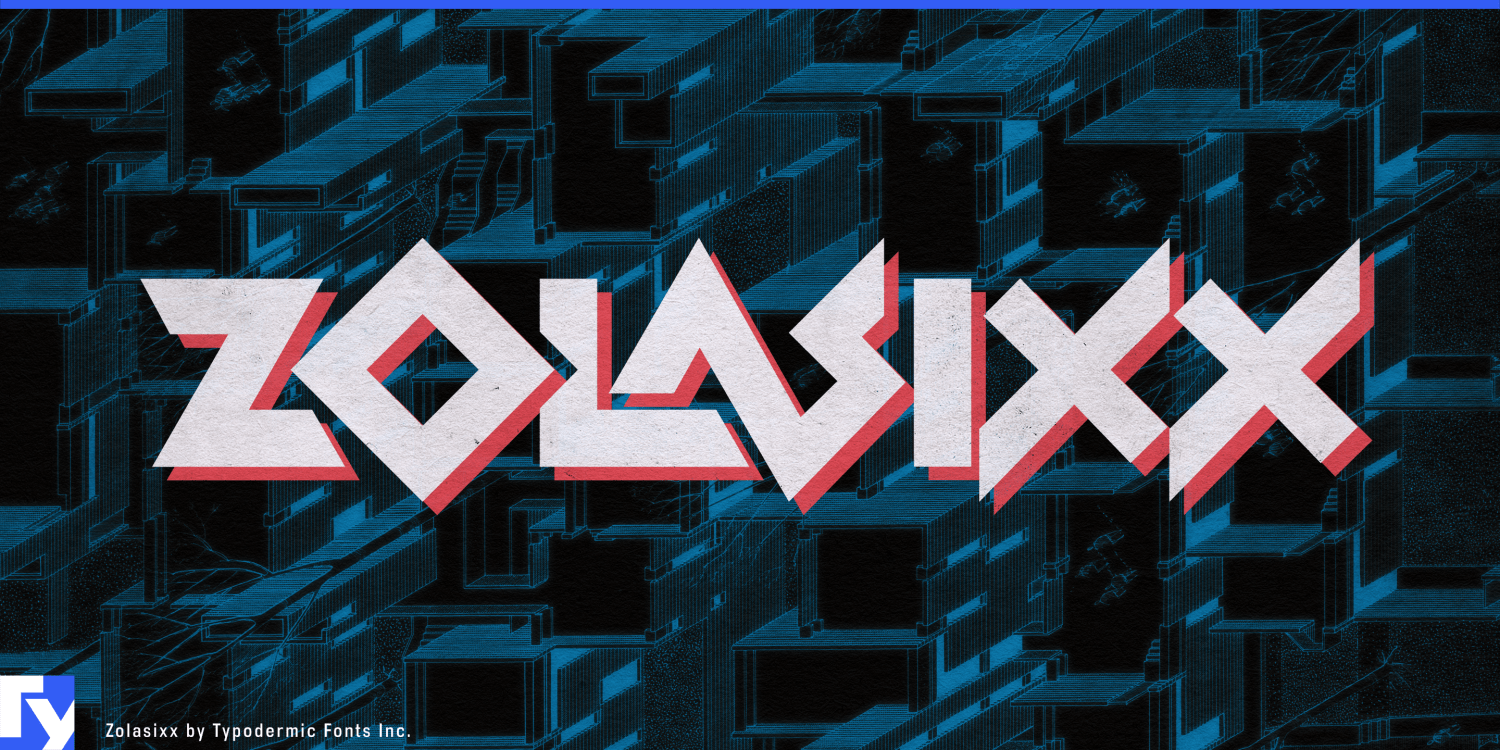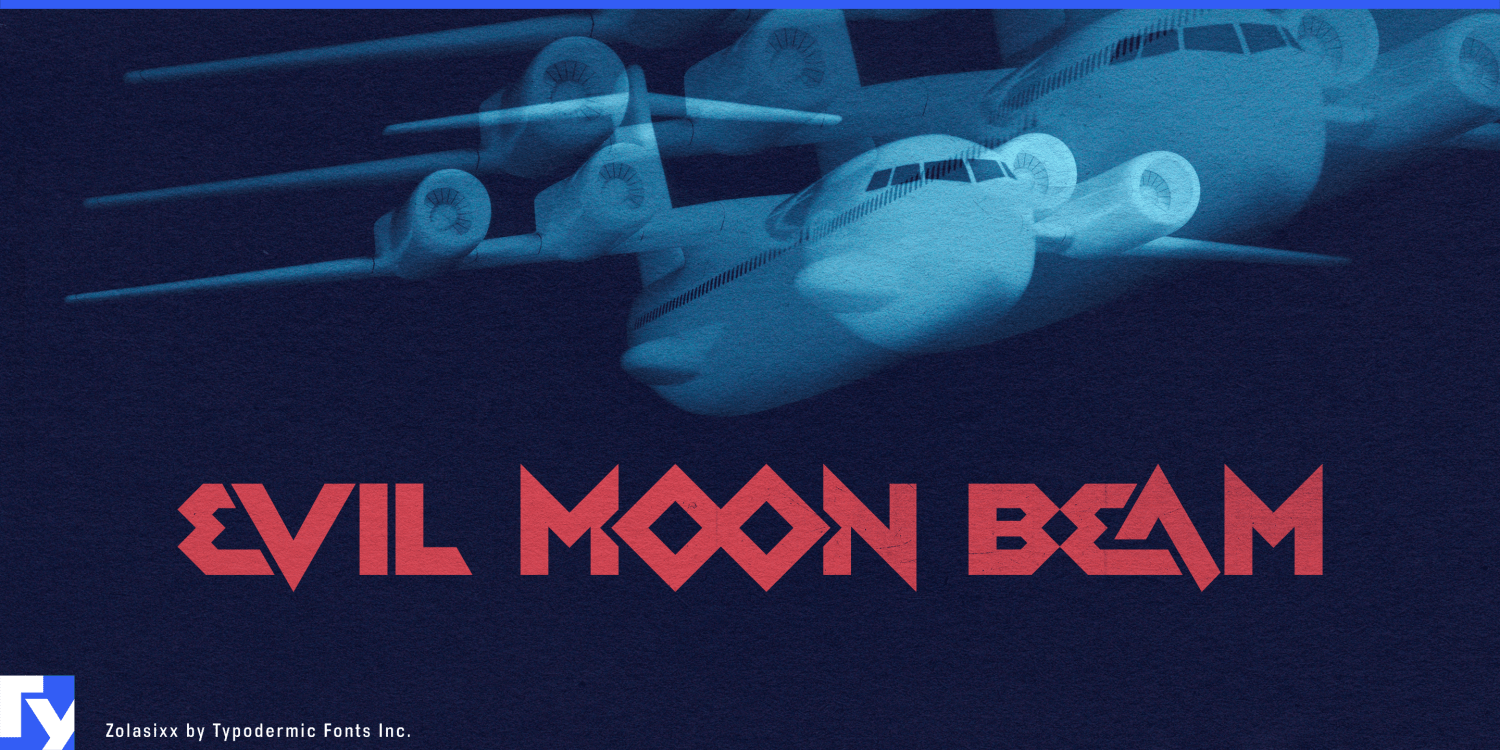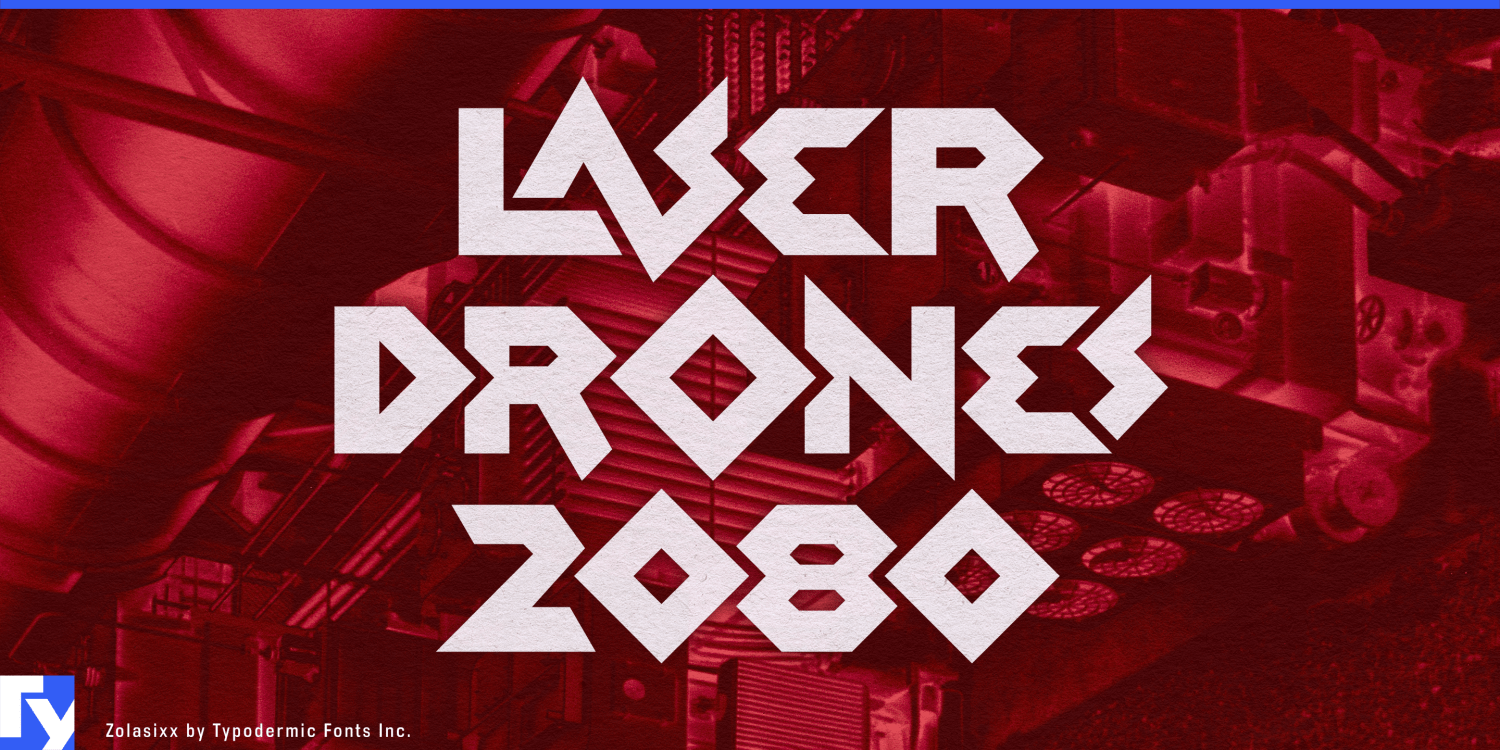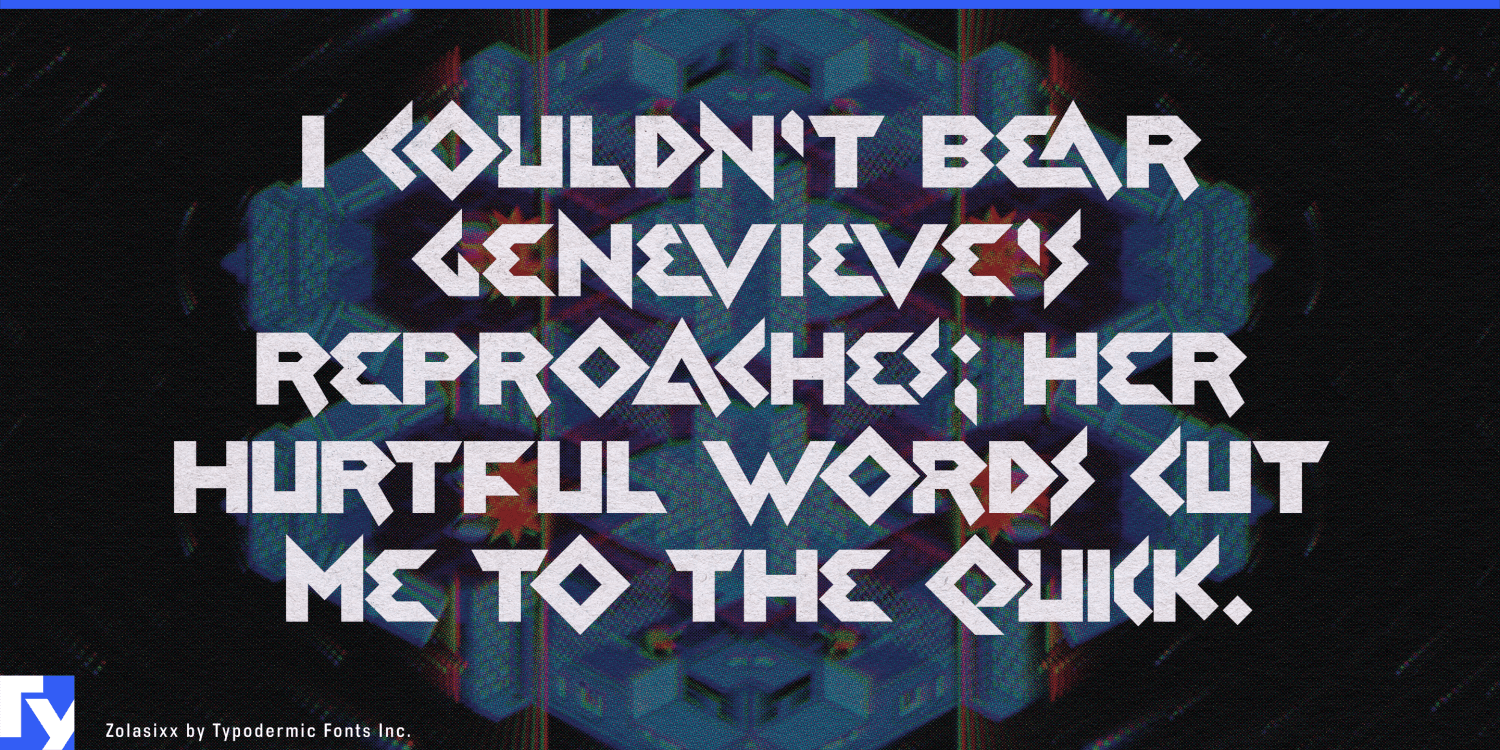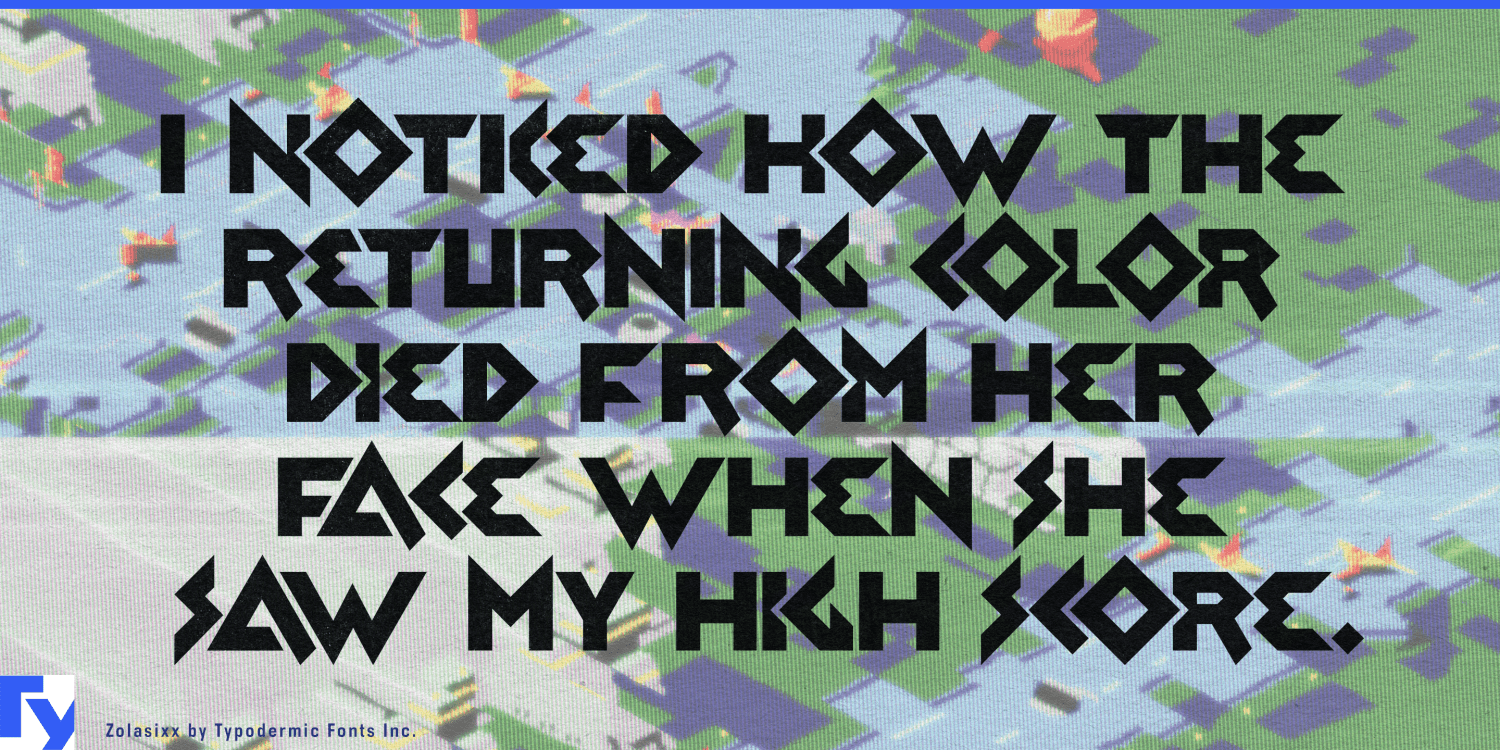
About Zolasixx
Attention, designers and digital warriors! Prepare to jack into the matrix of Zolasixx, the typeface that’s more electrifying than a fully-charged power-up and sharper than a laser-guided missile. This is a warp zone to the golden age of arcade…